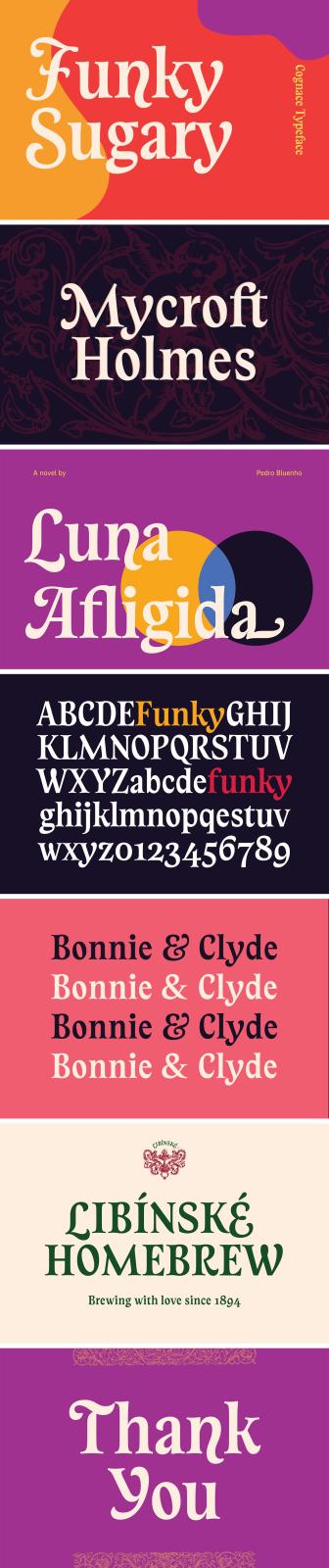
Cognace Decorative Font
Does it happen a lot when you get cartoony and playful feels by looking at the typeface? All the characters of this decorative font invite you to join the typographic adventure with them!
Some swashy capital letters are presented as alternative characters to give the typeface more rich flavor. This blaze of shapes is, actually, inspired by George Ross's speedball lettering. Embraced everything it could and spiced with a little bit of sharpness, the font supports more than 40 Latin-based languages. It can make your branding project fresh and frisky, come good as the d banner or simply as a headline of your editorial.